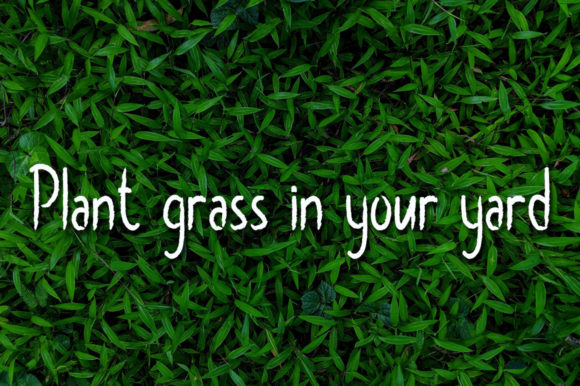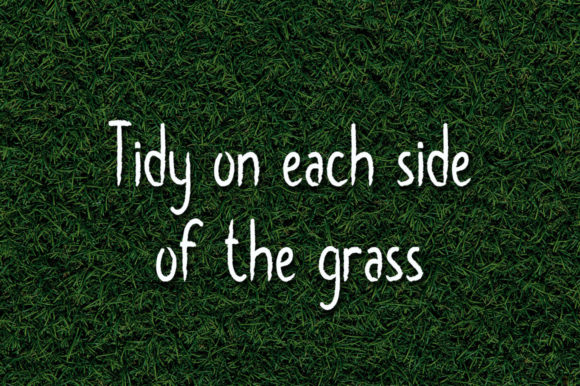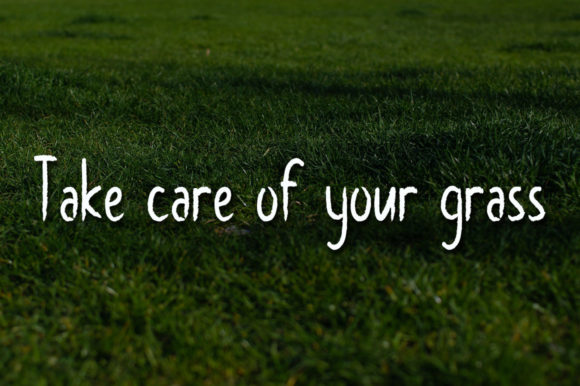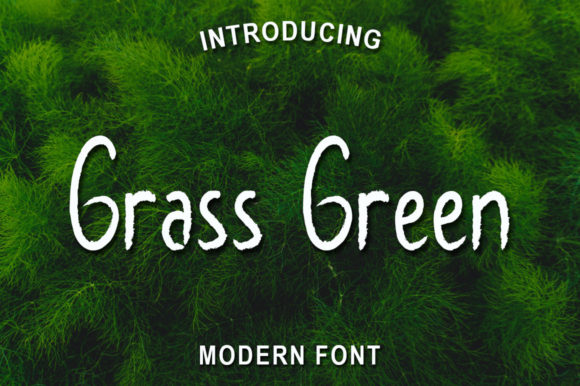
Introducing Grass Green Font: The Cute and Casual Handwritten Font You Need
Are you a designer or crafter looking for a font that can add a touch of personality to your creations? Look no further than Grass Green Font, a cute and casual handwritten font that’s perfect for a wide range of projects. In this article, we’ll take a closer look at what makes Grass Green Font so special and why it’s a must-have for any font library.
The Charm of Grass Green Font
Grass Green Font is a beautifully designed handwritten font that’s sure to capture the hearts of designers and crafters alike. Its cute and casual vibe makes it perfect for projects that require a personal touch, such as invitations, greeting cards, and social media graphics. The font’s playful and carefree feel also makes it ideal for use in children’s books, educational materials, and other kid-friendly content.
What Makes Grass Green Font So Versatile?
One of the things that sets Grass Green Font apart from other fonts is its incredible versatility. No matter the topic or theme, this font can be used to elevate any creation and add a touch of personality to it. Whether you’re working on a serious business project or a fun and creative endeavor, Grass Green Font is sure to bring a smile to your audience’s faces.
Key Features of Grass Green Font
So, what makes Grass Green Font so special? Here are just a few of its key features:
- Cute and casual handwritten design: Grass Green Font features a beautifully designed handwritten script that’s perfect for adding a personal touch to any project.
- Highly legible: Despite its playful feel, Grass Green Font is highly legible and easy to read, making it perfect for use in body text and other long-form content.
- Support for multiple languages: Grass Green Font supports multiple languages, making it a great choice for designers and crafters who work with international clients or create content for a global audience.
How to Use Grass Green Font in Your Designs
So, how can you use Grass Green Font in your designs? Here are a few ideas to get you started:
- Invitations and greeting cards: Grass Green Font is perfect for creating personalized invitations and greeting cards for special occasions like weddings, birthdays, and holidays.
- Social media graphics: Add a touch of personality to your social media graphics with Grass Green Font, which is perfect for creating fun and engaging content that stands out in crowded feeds.
- Children’s books and educational materials: Grass Green Font is a great choice for children’s books and educational materials, where its playful feel can help to engage young readers and learners.
- Branding and packaging: Use Grass Green Font to add a personal touch to your brand’s packaging and marketing materials, which can help to differentiate your brand and make it more relatable to your target audience.
In conclusion, Grass Green Font is a cute and casual handwritten font that’s perfect for designers and crafters who want to add a touch of personality to their creations. Its versatility, legibility, and ease of use make it a must-have for any font library, and its playful feel is sure to bring a smile to your audience’s faces. Whether you’re working on a serious business project or a fun and creative endeavor, Grass Green Font is the perfect choice.